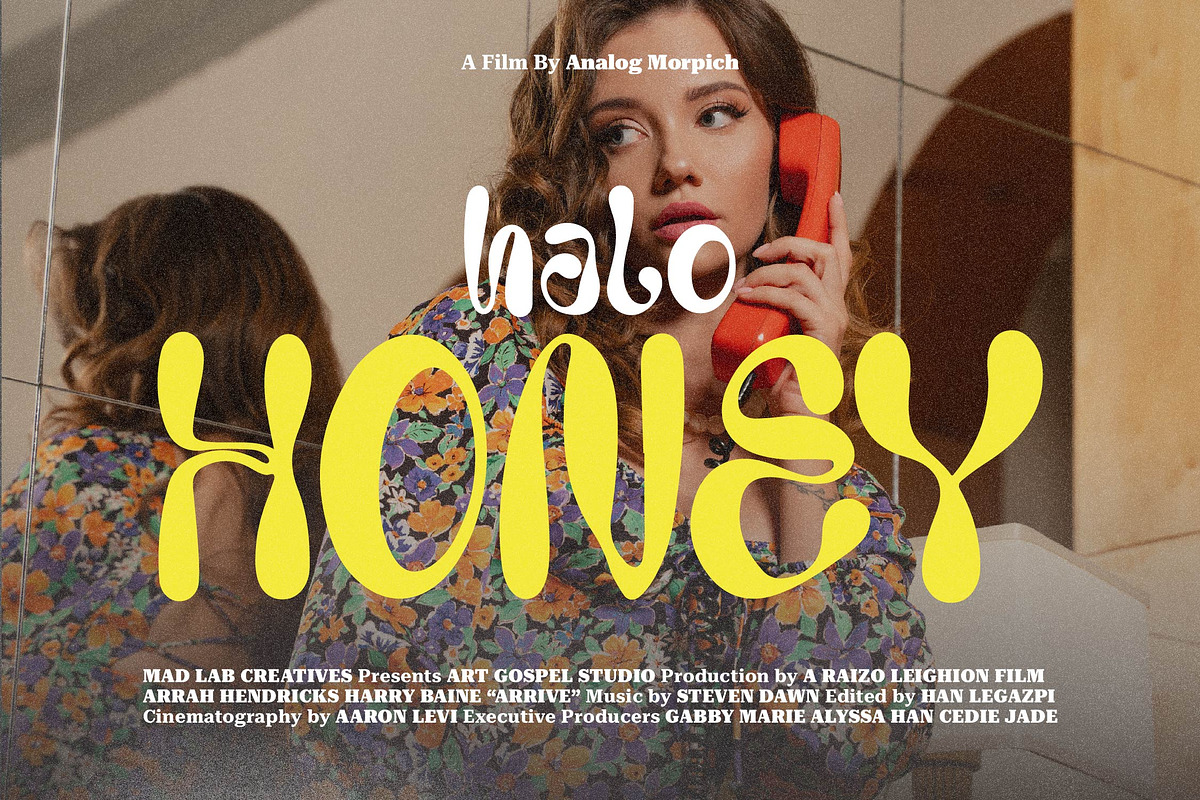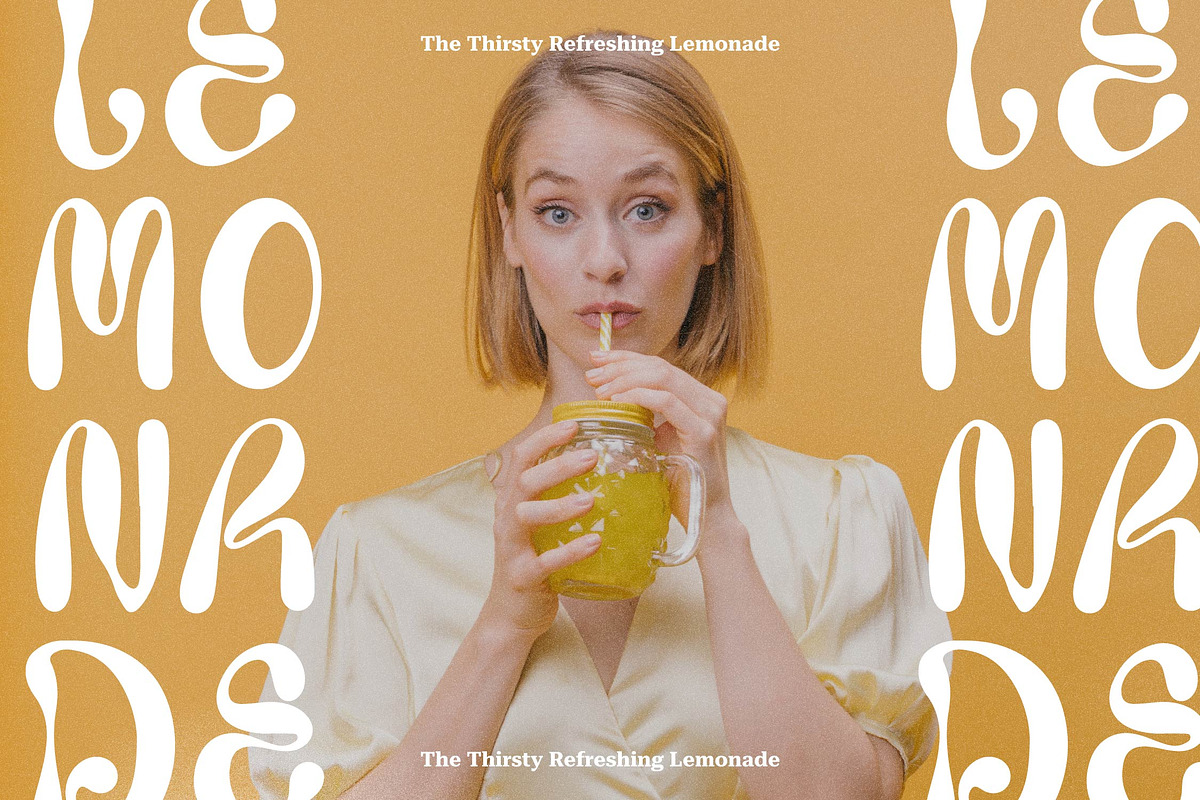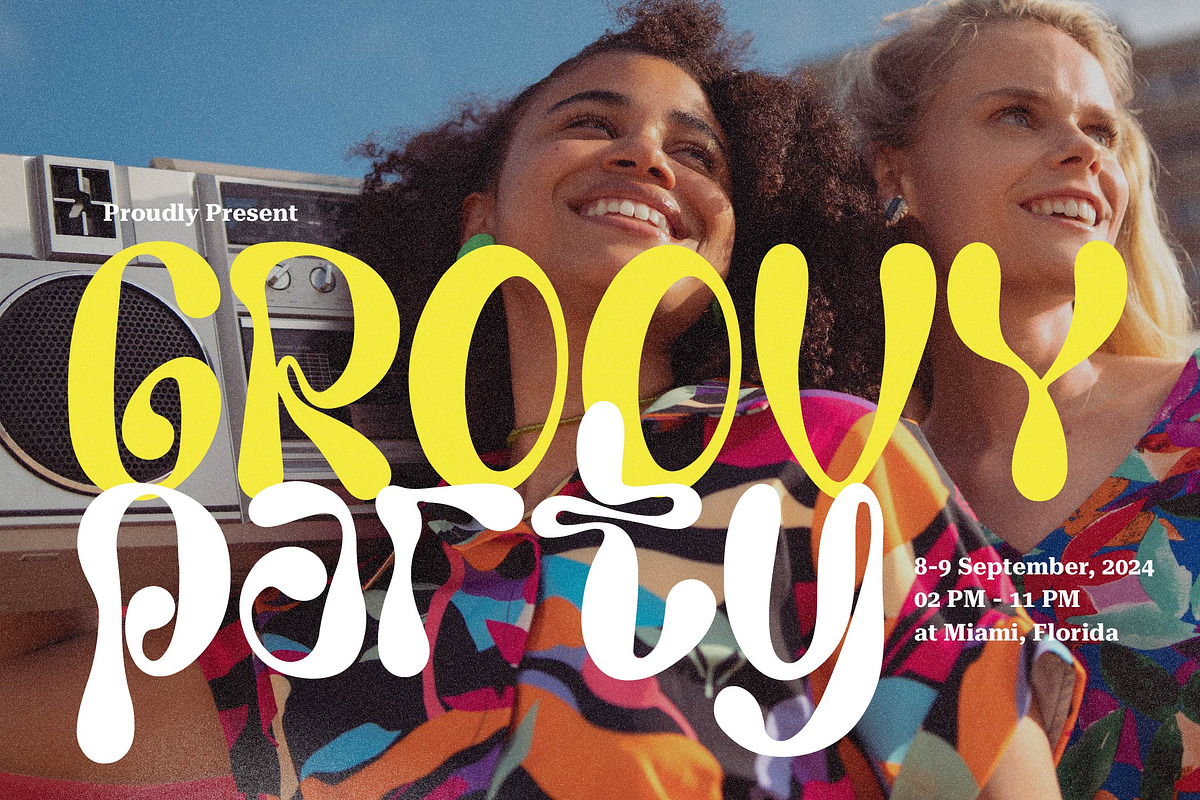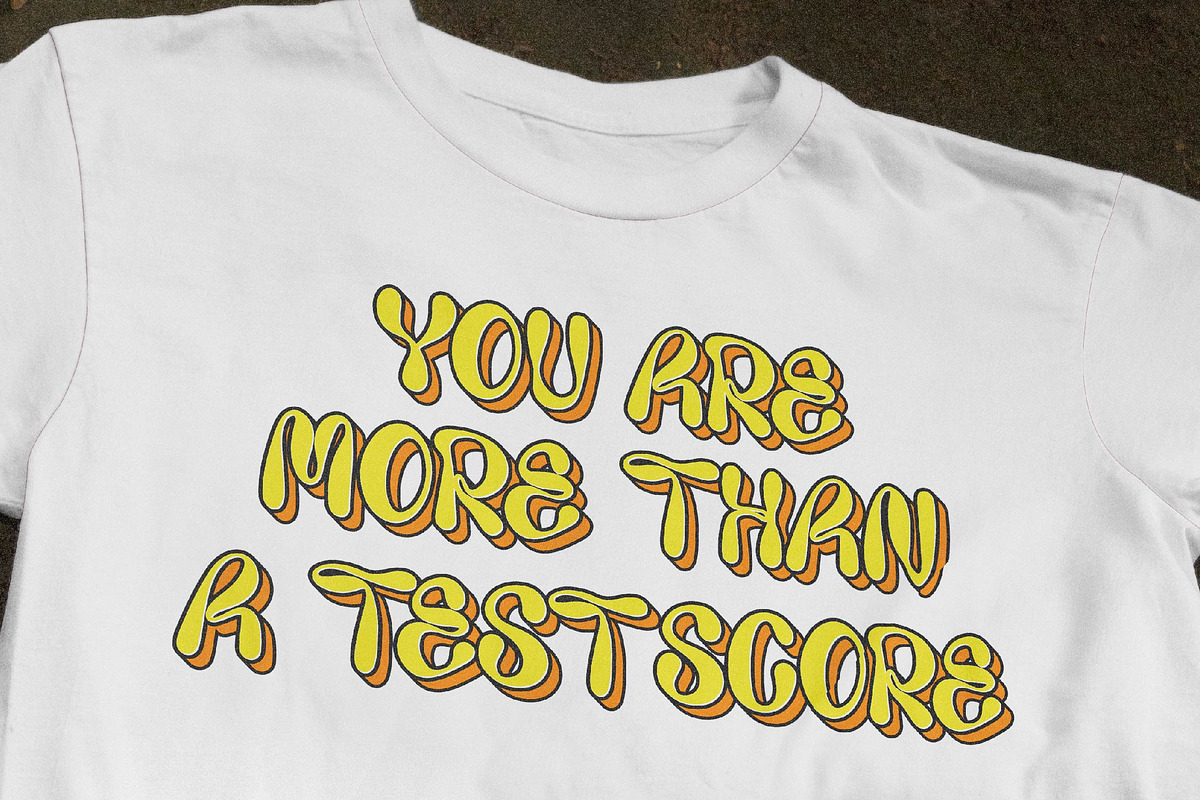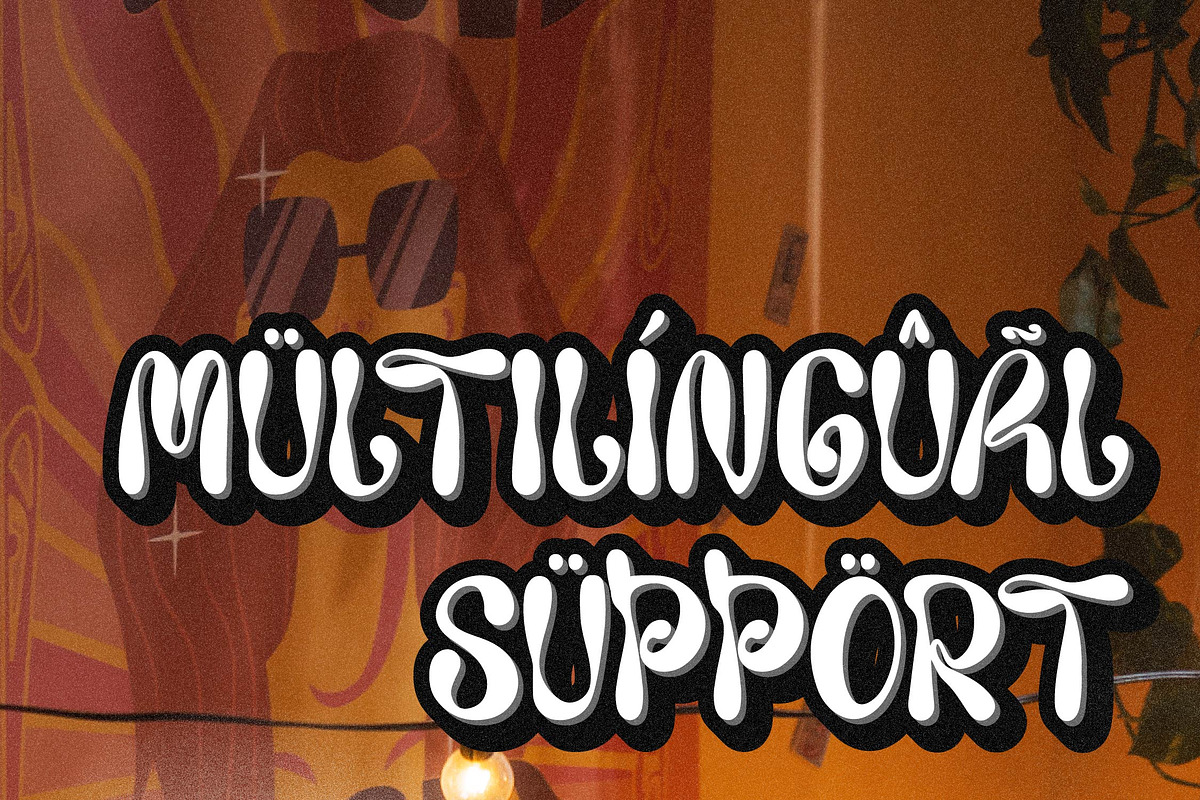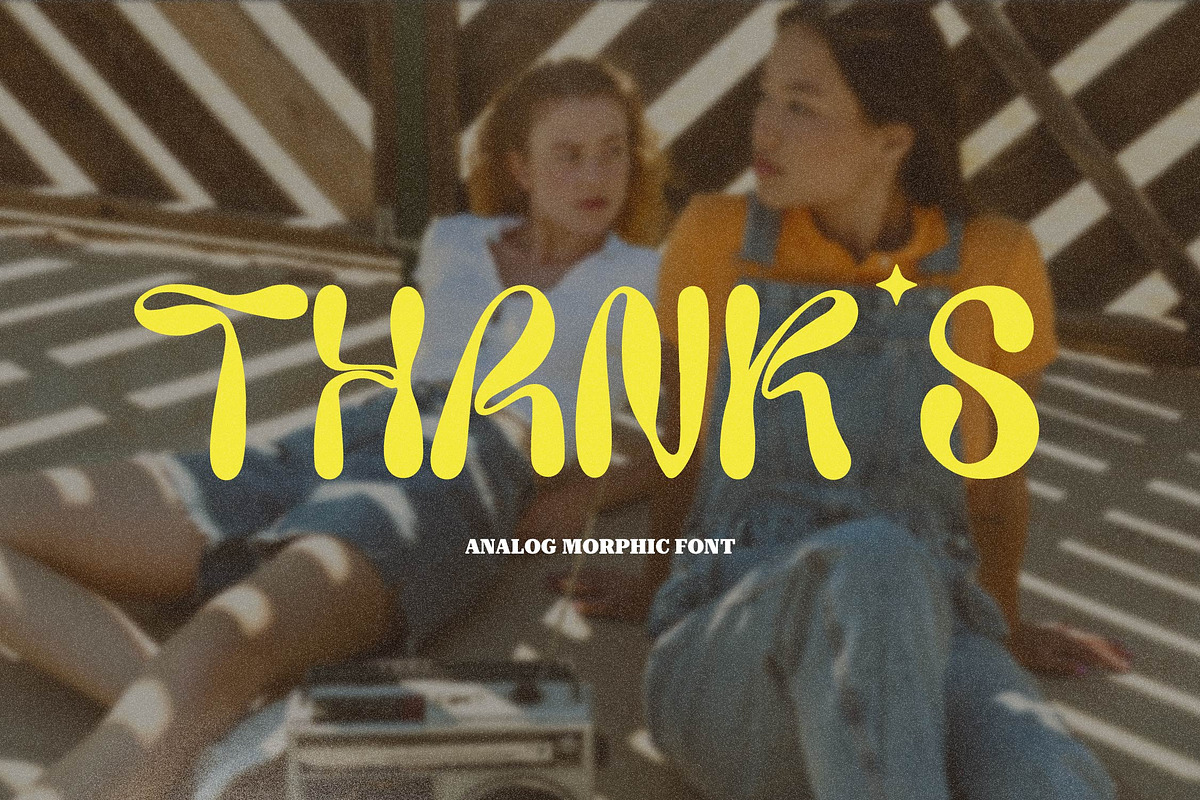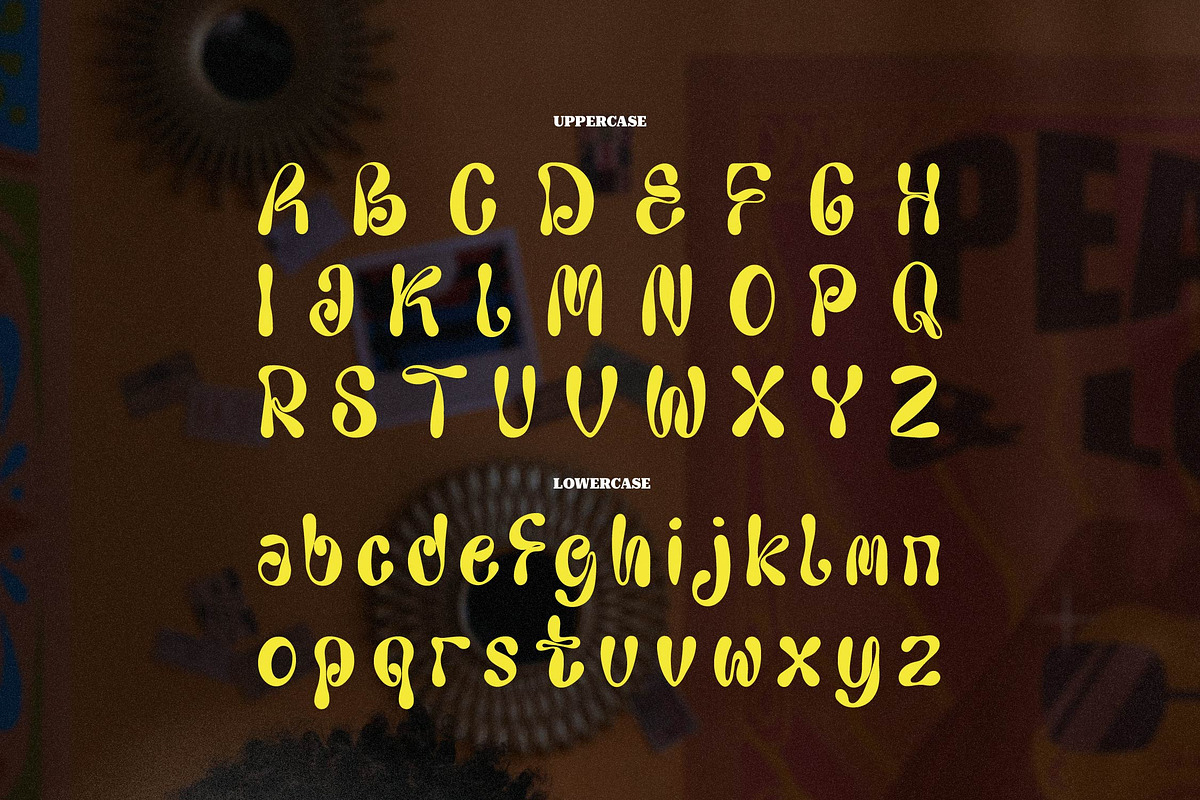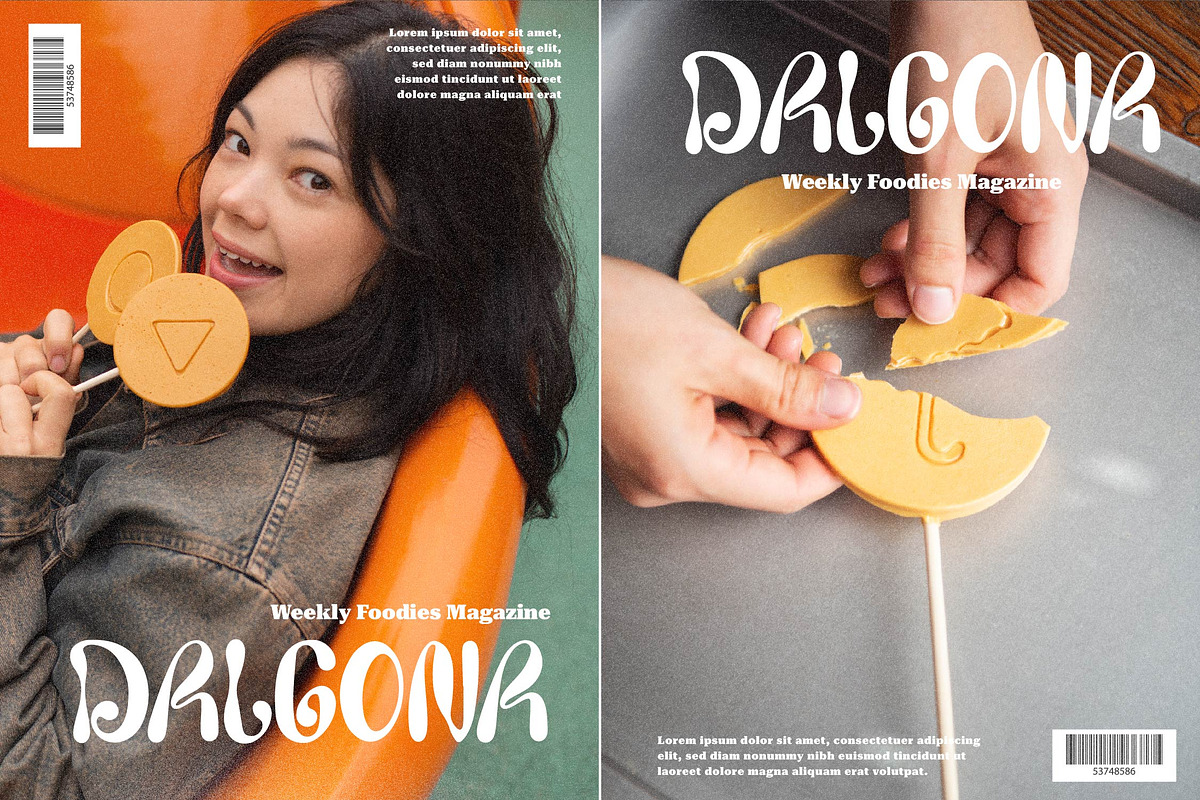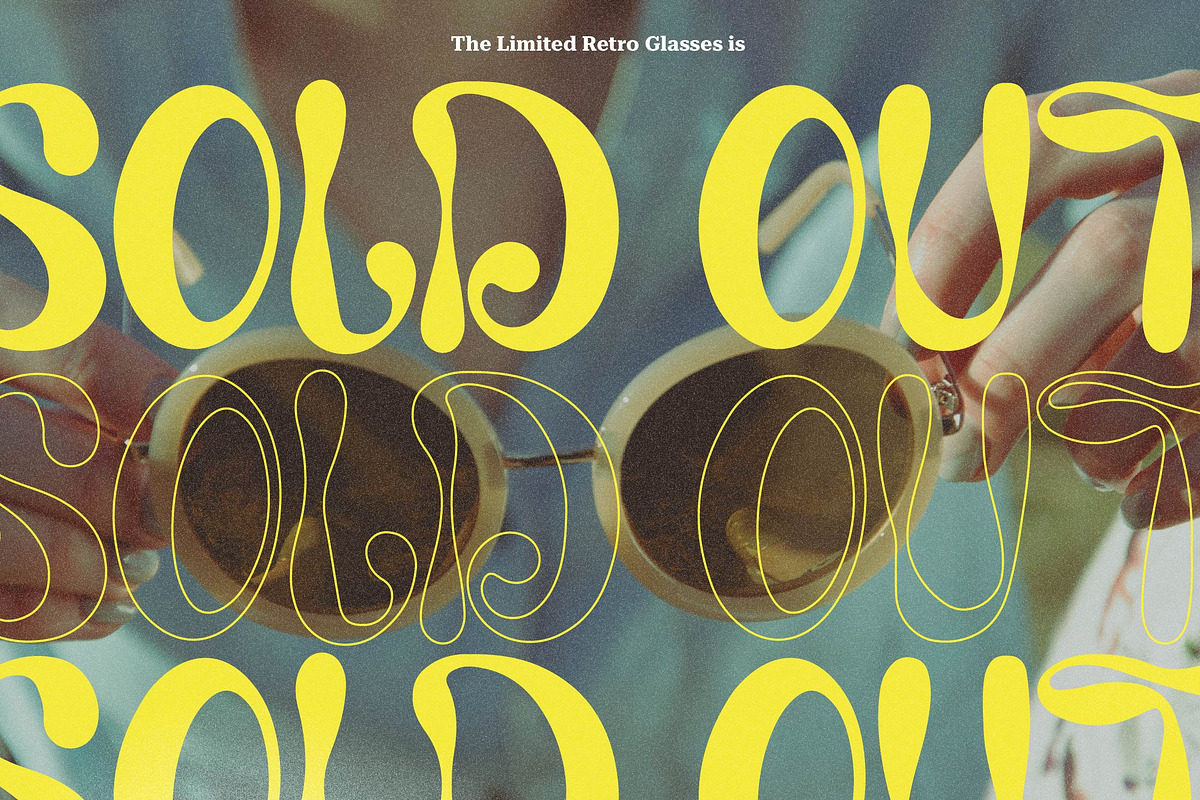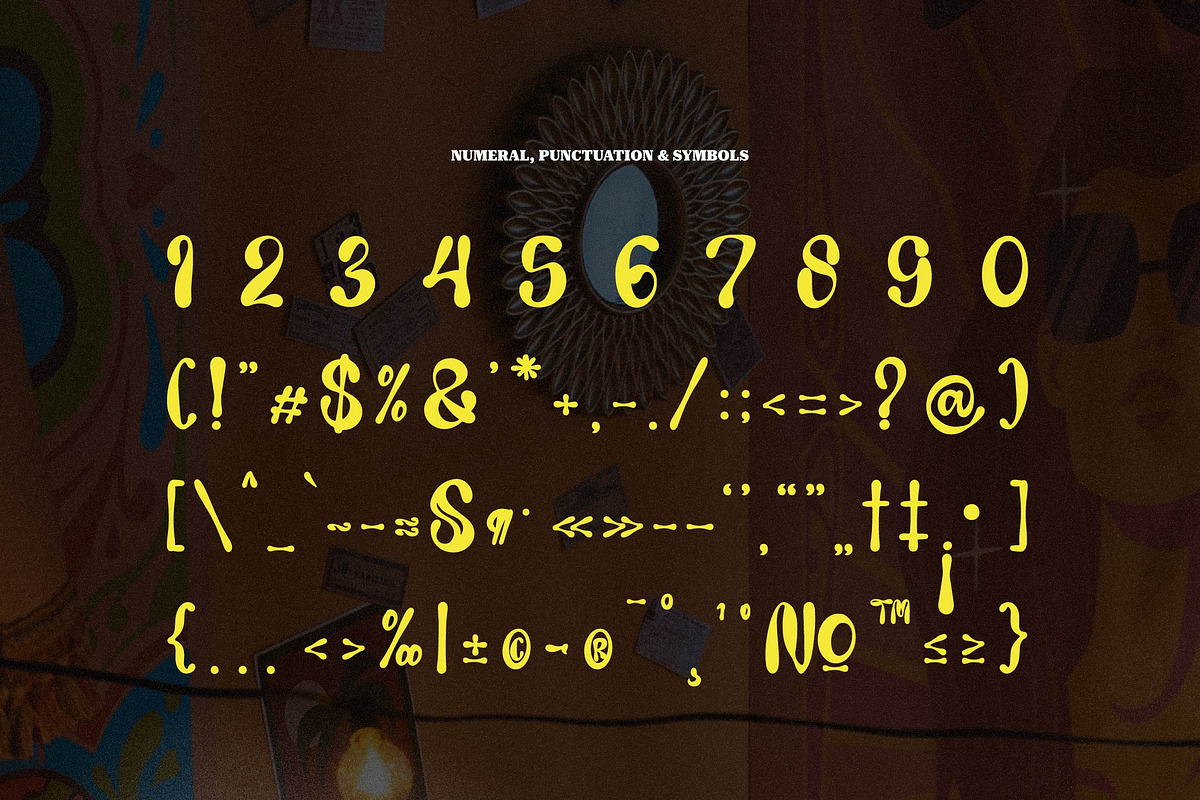
Analog Morphich | Handwritten Bubbly
Analog Morphich | Handwritten Bubbly, from Denustudios, suitable for any projects such as: logos, branding projects, homeware designs, product packaging, mugs, quotes, posters, shopping bags, t-shirts, book covers, name card, invitation cards, greeting cards, label, photography, watermark, special events, and all your other lovely projects that need a Handwritten Bubbly Font taste.